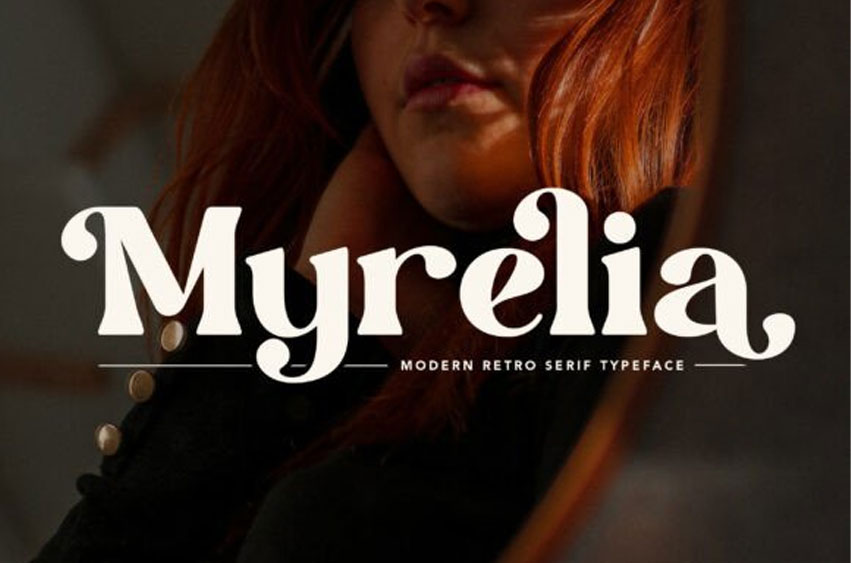
Myrelia Font is a modern retro serif typeface that combines bold curves with vintage elegance. Its distinctive letterforms bring a timeless character while maintaining a fresh, contemporary edge.
Perfect for logos, magazine titles, posters, packaging, and brand identities, Myrelia delivers sophistication with a touch of nostalgic charm.